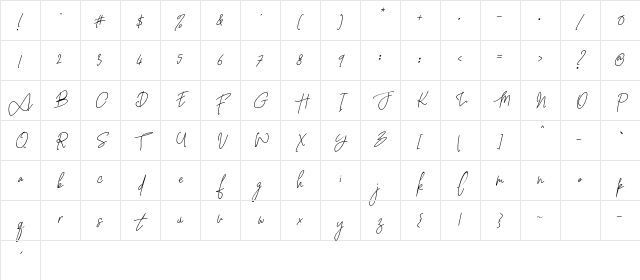
Witherscollin Italic Free Font
Witherscollin Italic
Designer: letterara 2019
Design Context for Witherscollin
Witherscollin is a composed and adaptable typeface that performs quietly and consistently across a wide range of design contexts. The slanted form adds forward momentum and visual energy.